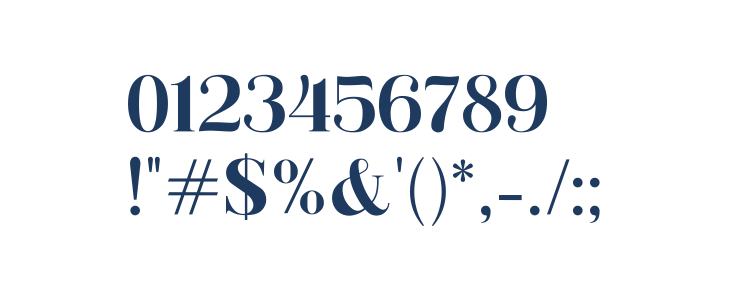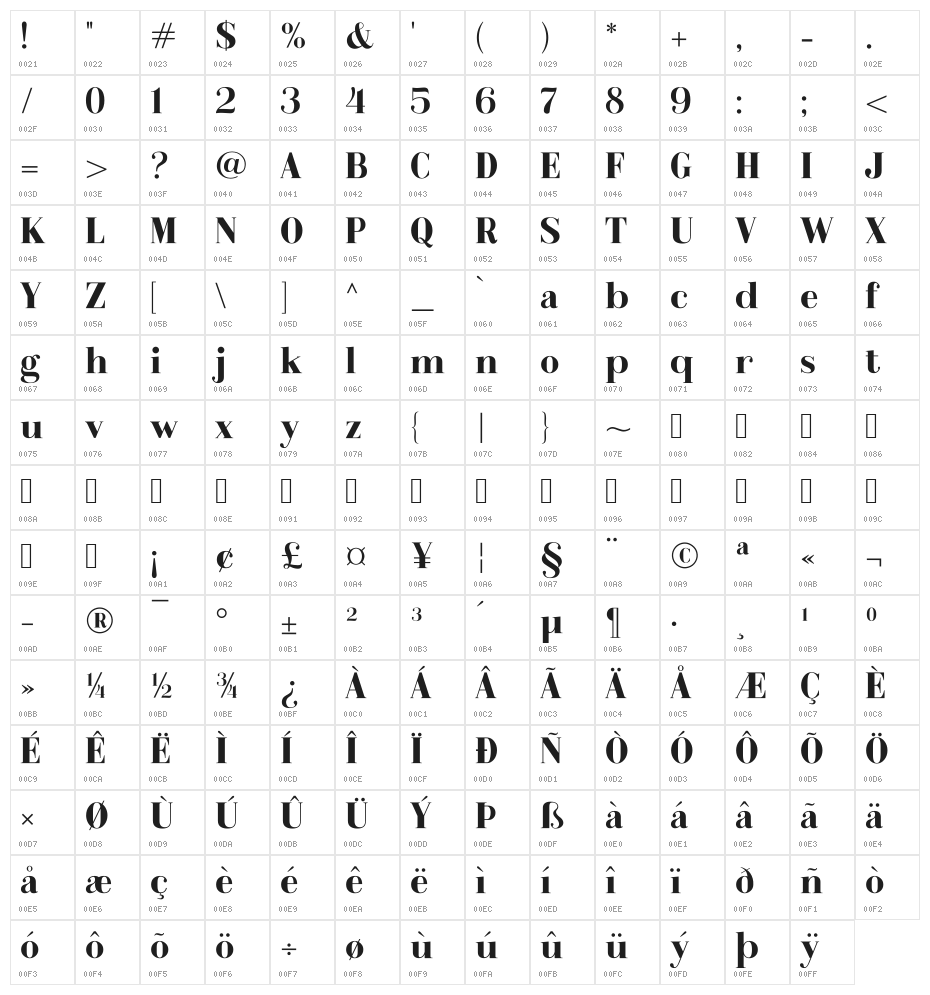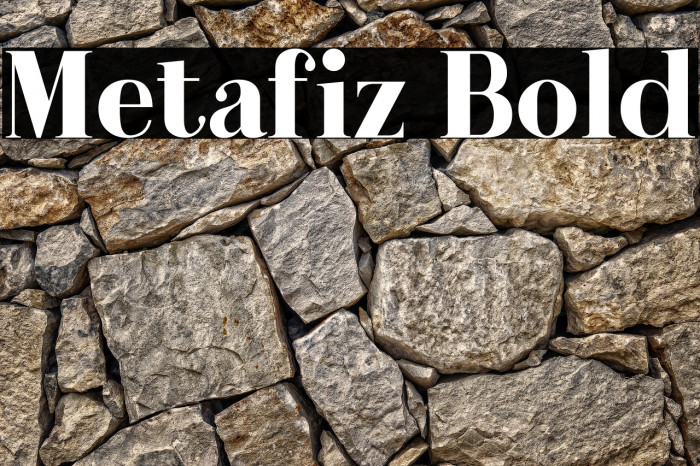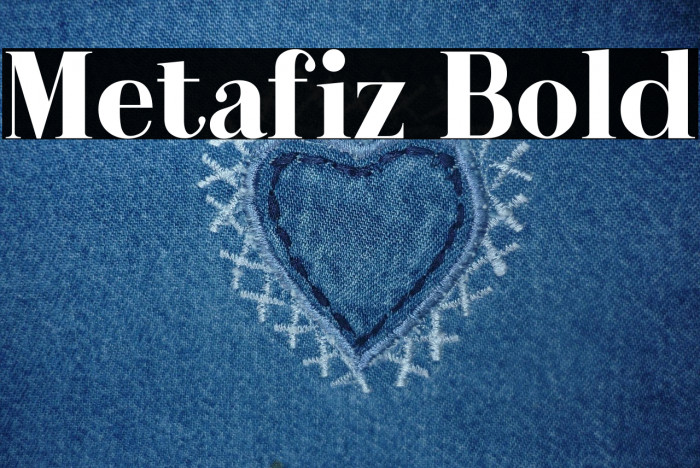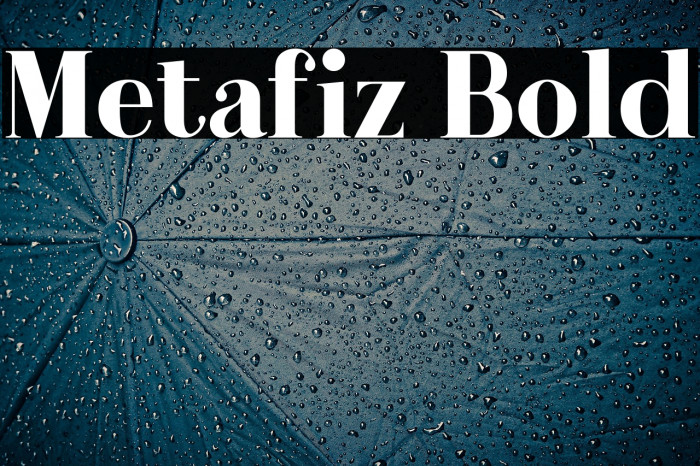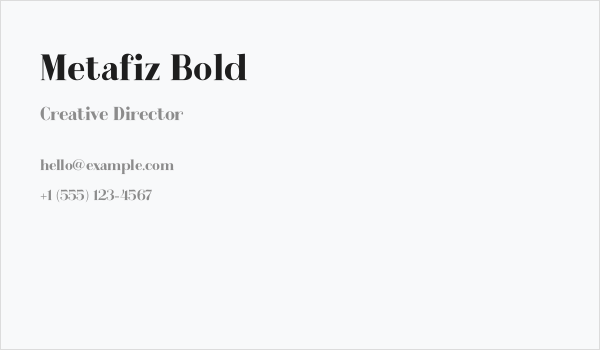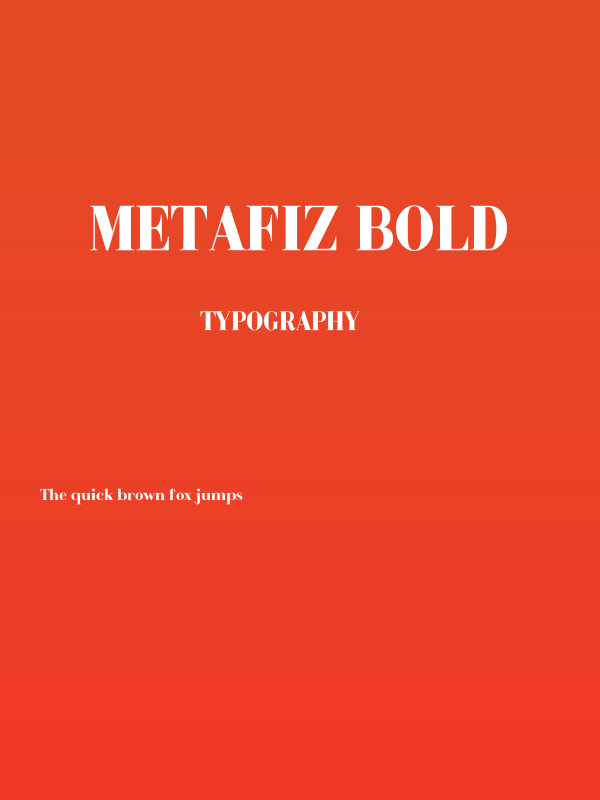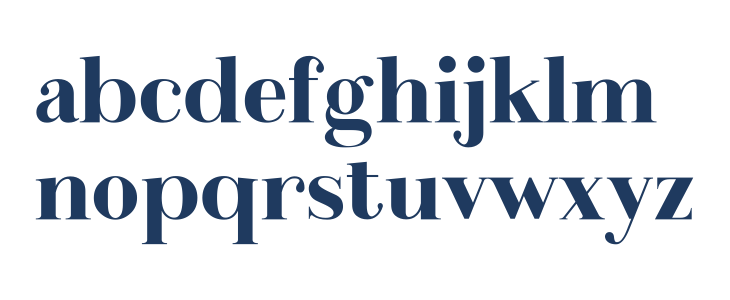
Metafiz Bold Font
Metafiz Bold Description
This font exhibits a bold and striking presence with its thick, well-defined strokes and high contrast between thick and thin lines. The serifs are pronounced, adding a touch of elegance and sophistication. The uppercase letters are tall and commanding, while the lowercase letters maintain a consistent style with a slightly more rounded appearance. The numerals are clear and robust, ensuring readability. Special characters are crafted with the same attention to detail, making them stand out. Overall, this font combines traditional serif elements with a modern boldness, making it versatile for various design needs.
| Proposed Projects | Ideal for headlines, branding, editorial design, and luxury product packaging. |